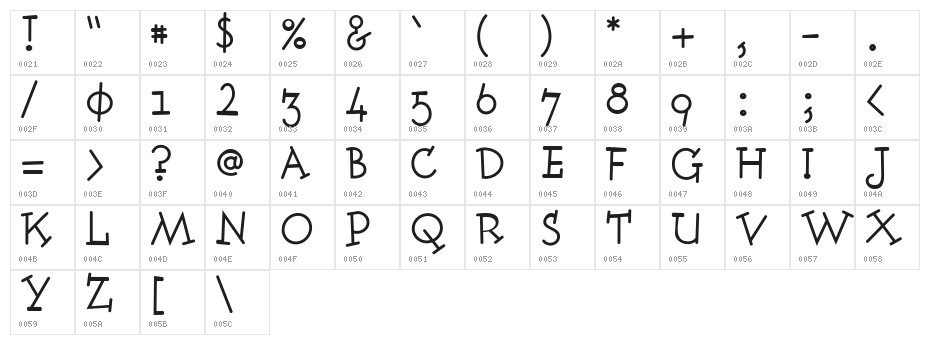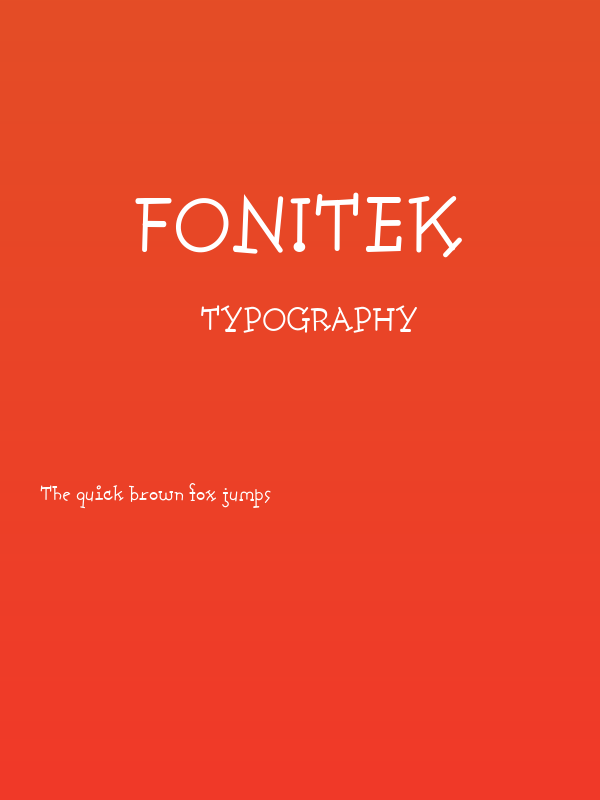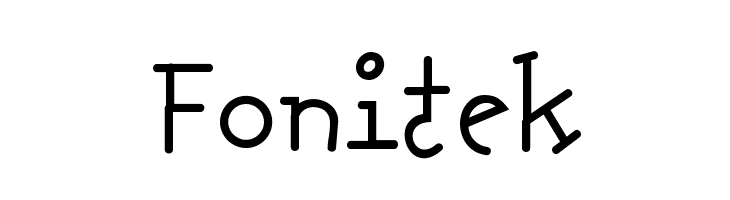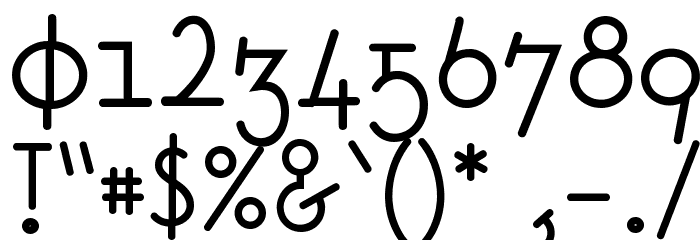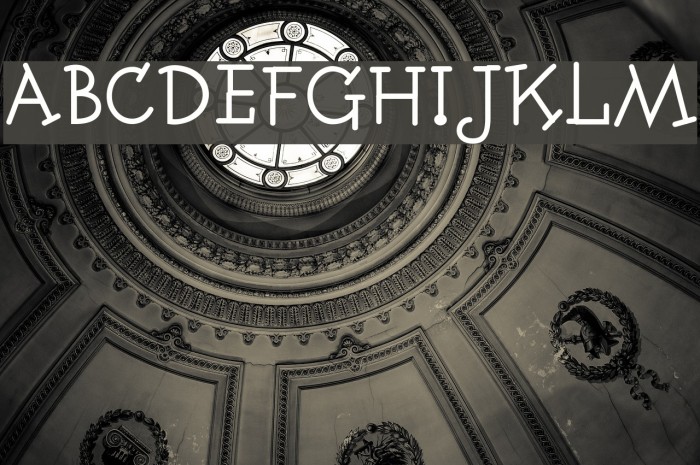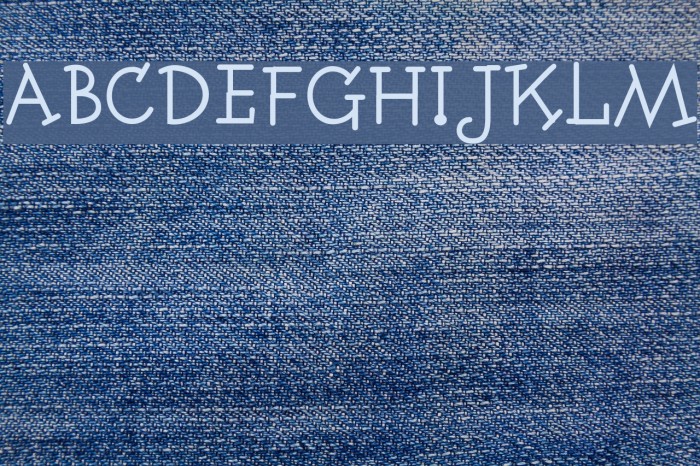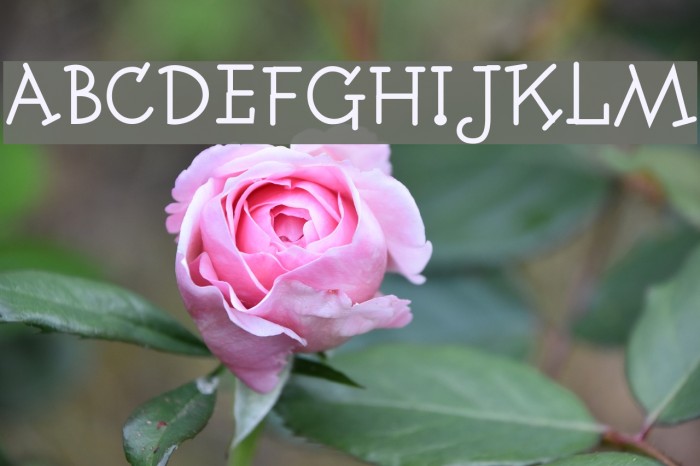
Fonitek Font
Fonitek Description
This font features a playful and whimsical design, characterized by its unique and quirky letterforms. The uppercase letters have a distinct style with rounded edges and occasional decorative elements, such as dots or small extensions. The lowercase letters maintain a consistent playful theme, with some characters featuring loops and curls that add to the font's charm. The numerals are bold and easy to read, matching the overall style of the alphabet. Special characters are creatively designed, maintaining the font's cohesive and fun aesthetic. This font is ideal for projects that require a lighthearted and informal touch.
| Overall Style | Playful |
| Proposed Projects | Ideal for children's books, playful branding, greeting cards, and creative posters. |